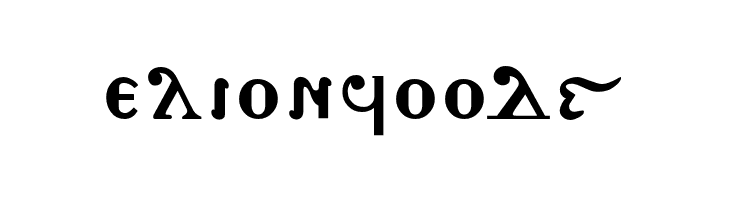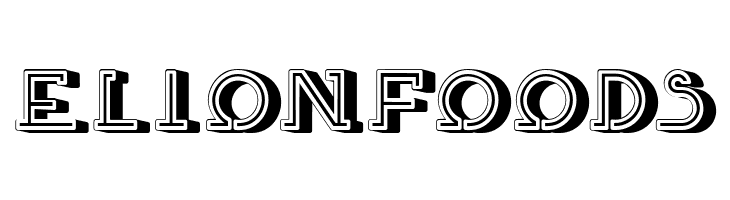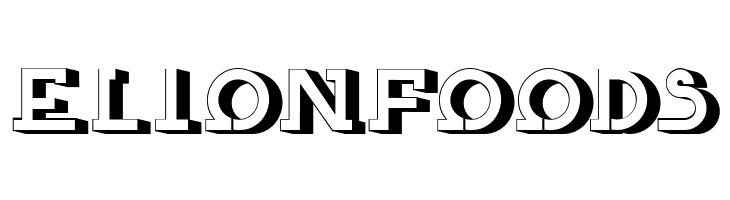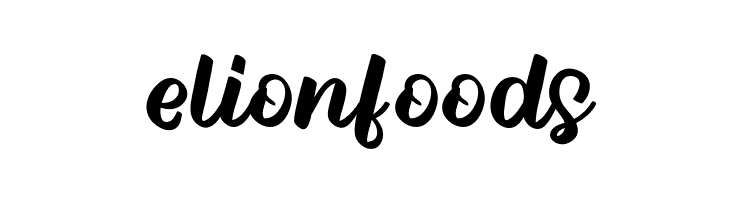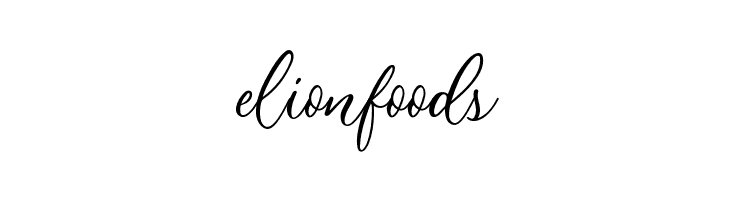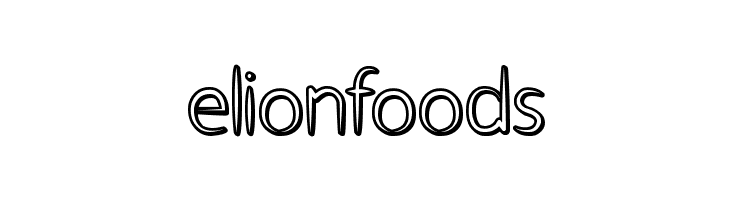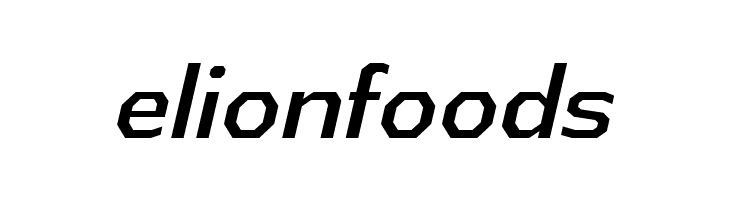
A modern italic font with geometric structure and dynamic slant.
A geometric and modern font with bold, clean lines and sharp angles.
A bold, expressive script font with fluid strokes and elegant curves.
A bold, flowing script font with elegant curves and medium contrast.
An elegant and flowing script font with a classic, sophisticated style.
A bold, decorative font with intricate curves and sharp edges.
A playful, outlined font with characters enclosed in circles, offering a unique geometric style.
A bold, collegiate-style font with strong serifs and a layered, outlined design.
A bold, three-dimensional font with a strong shadow effect and geometric style.
An elegant script font with flowing, interconnected strokes and decorative swashes.